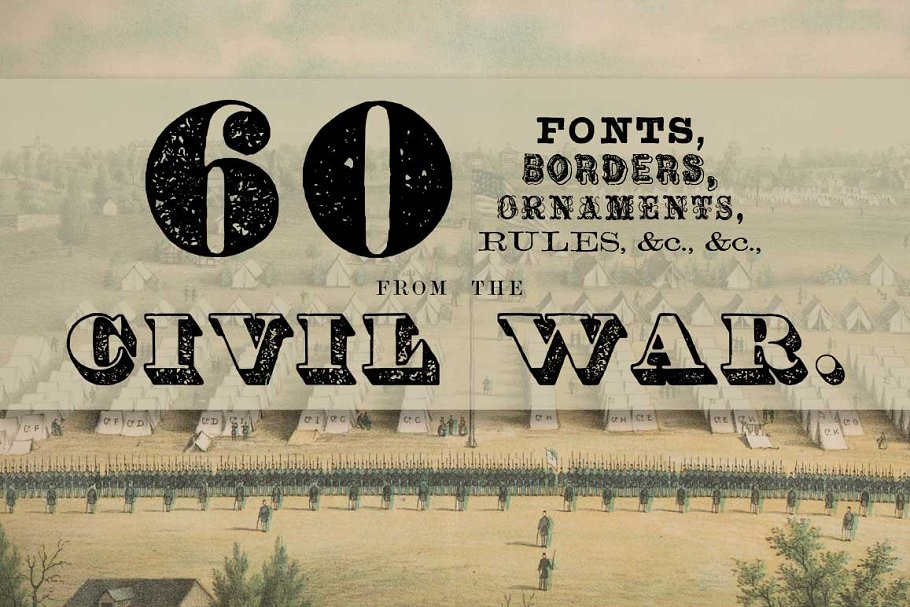
Experience the timeless elegance of the Civil War era with 60 Fonts from the Civil War Era, the latest addition to the Printer's Type Case series by Jason Wickersty. This collection features 60 of the most common fonts, ornaments, and borders used between 1850 and 1865, scanned from original books and documents printed between 1848 and 1867.
Our fonts are perfect for historical reenactors, museums, and anyone looking to create a vintage logo or graphic design with an authentic touch. Impress your clients and customers with unique and eye-catching designs that will transport them back to a bygone era.
Our collection includes not only 40 display fonts but also 3 book fonts specially designed for body text, 10 borders (6 ornamented borders and 4 line borders), pointing hands, ornamental characters, typographical flourishes, brass rules, brass circles, brass ovals, and brass frames. You'll also receive a 45-page specimen book (PDF) and instructions on how to create the borders (PDF) and install the fonts (PDF).